10 Hand Written Great Free Fonts
This is a selection of ten unique fonts which are completely free to play around with. What makes this selection of fonts so unique and what first originally attracted me to this selection of individual fonts, is that each font has been hand drawn. This is a great freebies round up i hope you enjoy and put these wounderful fonts to a good use.
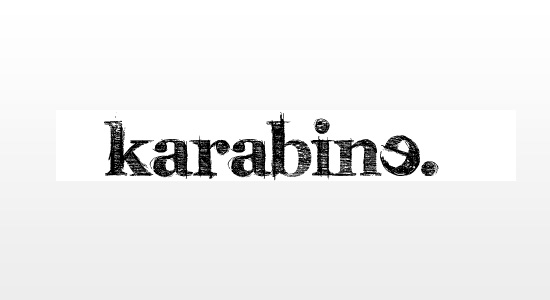
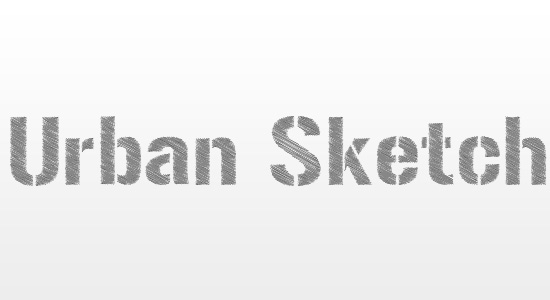
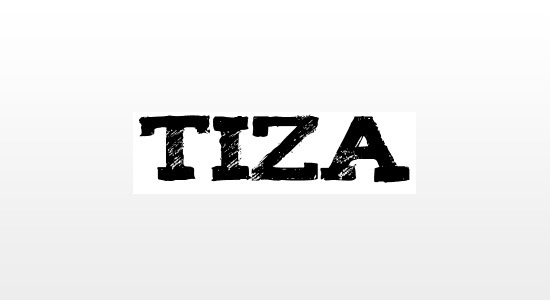
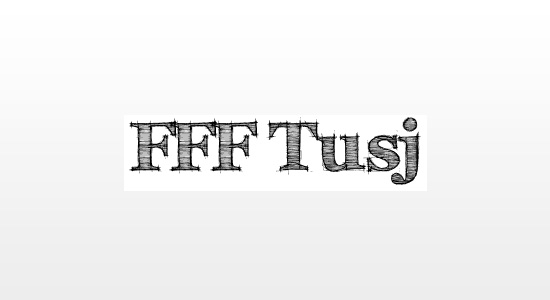
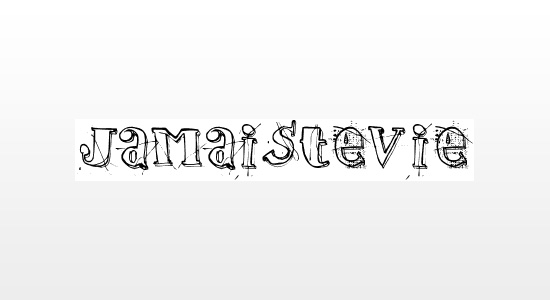
these look fun. Thanks. I enjoy the stencil writing.
they look cool in practice, but in a real world scenario, the consistency of the letters is going to kill the design. just make your own with the pen tool, or a tablet. the outcome with be exponentially better.